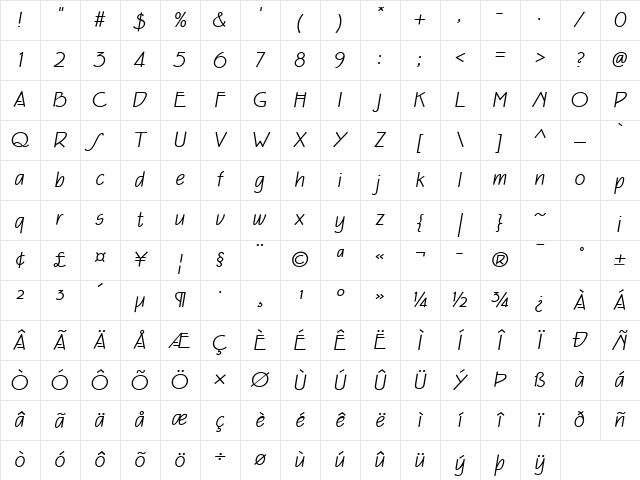
Eaglefeather Regular Italic
Style: Regular Italic
Foundry: The Frank Lloyd Wright Foundation. This product has been developed in cooperation with the Frank Lloyd Wright Foundation (Taliesin West, Scottsdale, Arizona). A portion of the sales supports the conservation and education programs of
Complete Eaglefeather Regular Italic glyph index. Displaying only characters natively supported by Eaglefeather Regular Italic font.
Design Context for Eaglefeather
Eaglefeather is a composed and adaptable typeface that performs quietly and consistently across a wide range of design contexts. The slanted form adds forward momentum and visual energy.
Who designed the Eaglefeather Regular Italic font?
This font was published by The Frank Lloyd Wright Foundation. This product has been developed in cooperation with the Frank Lloyd Wright Foundation (Taliesin West, Scottsdale, Arizona). A portion of the sales supports the conservation and education programs of. Check the technical specs section for copyright and designer details.